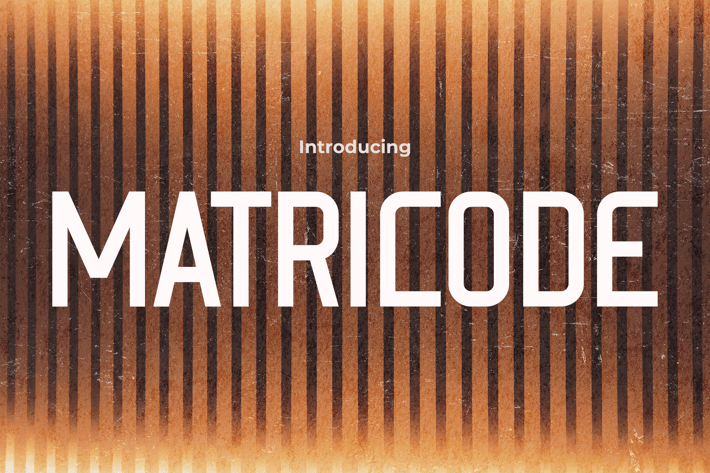
Matricode - Retro Font
Matricode
Futuristic geometric display font with streamlined lines, modern minimalism, and tech‑driven clarity.
MATRICODE fuses sharp terminals, uniform stroke widths, and subtle cut corners to deliver an angular, expressive vibe. Its low‑contrast, grid‑inspired proportions evoke coding layouts and sci‑fi interfaces. Designed for readability and attitude, this techy typeface balances precision with a dynamic flow—perfect for any project that needs a forward‑looking edge.
Whether you’re crafting app UIs, event posters, startup branding, or gaming graphics, MATRICODE brings an energetic digital pulse. Its structured forms guide the eye cleanly across screens and print, helping tech entrepreneurs, designers, and developers communicate innovation with confidence and style.
Key Features :
Tech‑Inspired Precision
- Uniform stroke weight and sharp corners for a contemporary look
- Grid‑based proportions ensure consistent alignment in UI and print
Versatile Digital Use
- Headlines and banners for hackathons, conferences, and product launches
- UI elements, logos, and posters for tech, gaming, or sci‑fi brands
Readability & Impact
- Open apertures and clear counters boost legibility on screen
- Low‑contrast structure maintains clarity across sizes
Basic Latin A-Z and A-z